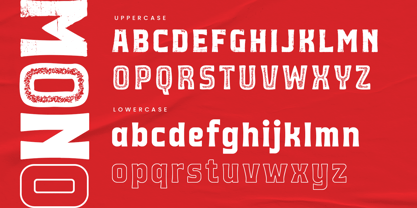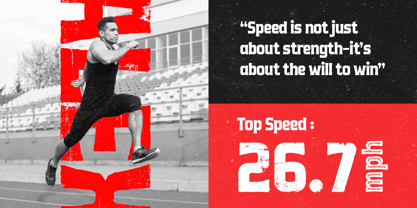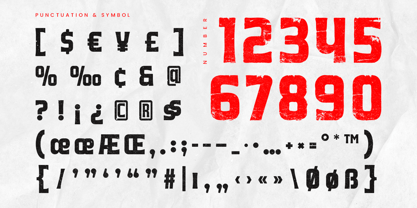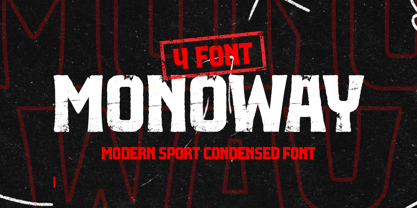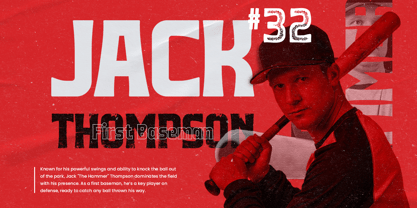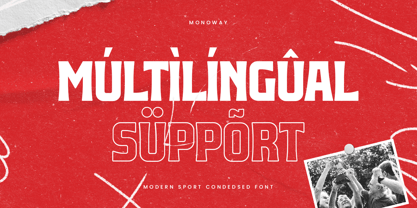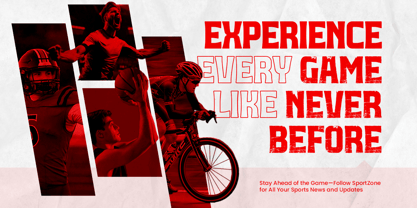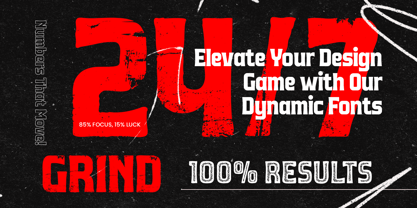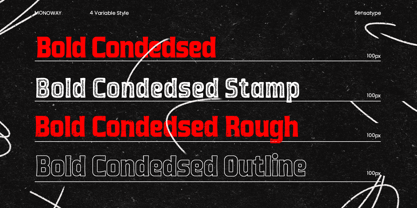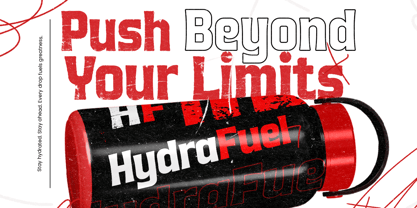
Monoway
Monoway - Modern Sport Condedsed Font
Monoway is a modern sport condensed font that packs power into a sleek, bold design. Its condensed letterforms and dynamic lines make it ideal for athletic branding, sports team logos, and activewear designs. With a sharp, strong structure, Monoway stands out in both digital and print media, creating a lasting impact with its commanding presence.
Perfect for fast-paced, energetic projects, Monoway's clean and bold aesthetic fits perfectly into sport-related design work. Whether you're designing a brand for a sportswear company, creating a new team logo, or working on dynamic advertising materials, Monoway’s condensed style brings a level of intensity and clarity that’s hard to miss. Take your design projects to the next level with Monoway, where modern athleticism meets professional design. Its sharp edges and condensed structure ensure your visuals will look sleek, bold, and impactful no matter the medium.
Monoway Modern Sport Condensed Font Features:
• Bold condensed characters for athletic designs
• Punctuation, Number, and Symbol
• Uppercase and Lowercase
• Opentype Features
Monoway Modern Sport Condensed Font Ready in 4 Styles:
• Monoway Bold Condensed
• Monoway Bold Condensed Outline
• Monoway Bold Condensed Rough
• Monoway Bold Condensed Stamp
Multilingual Characters available for:
Afrikaans, Albanian, Asu, Basque, Bemba, Bena, Breton, Chiga, Cornish, Dutch, English, Estonian, Filipino, Finnish, Friulian, Galician, German, Gusii, Indonesian, Irish, Italian, Kabuverdianu, Kalenjin, Kinyarwanda, Luo, Luxembourgish, Luyia, Machame, Makhuwa-Meetto, Makonde, Malagasy, Manx, Morisyen, North Ndebele, Nyankole, Oromo, Portuguese, Quechua, Romansh, Rombo, Rundi, Rwa, Samburu, Sango, Sangu, Scottish Gaelic, Sena, Shambala, Shona, Soga, Somali, Spanish, Swahili, Swedish, Swiss.